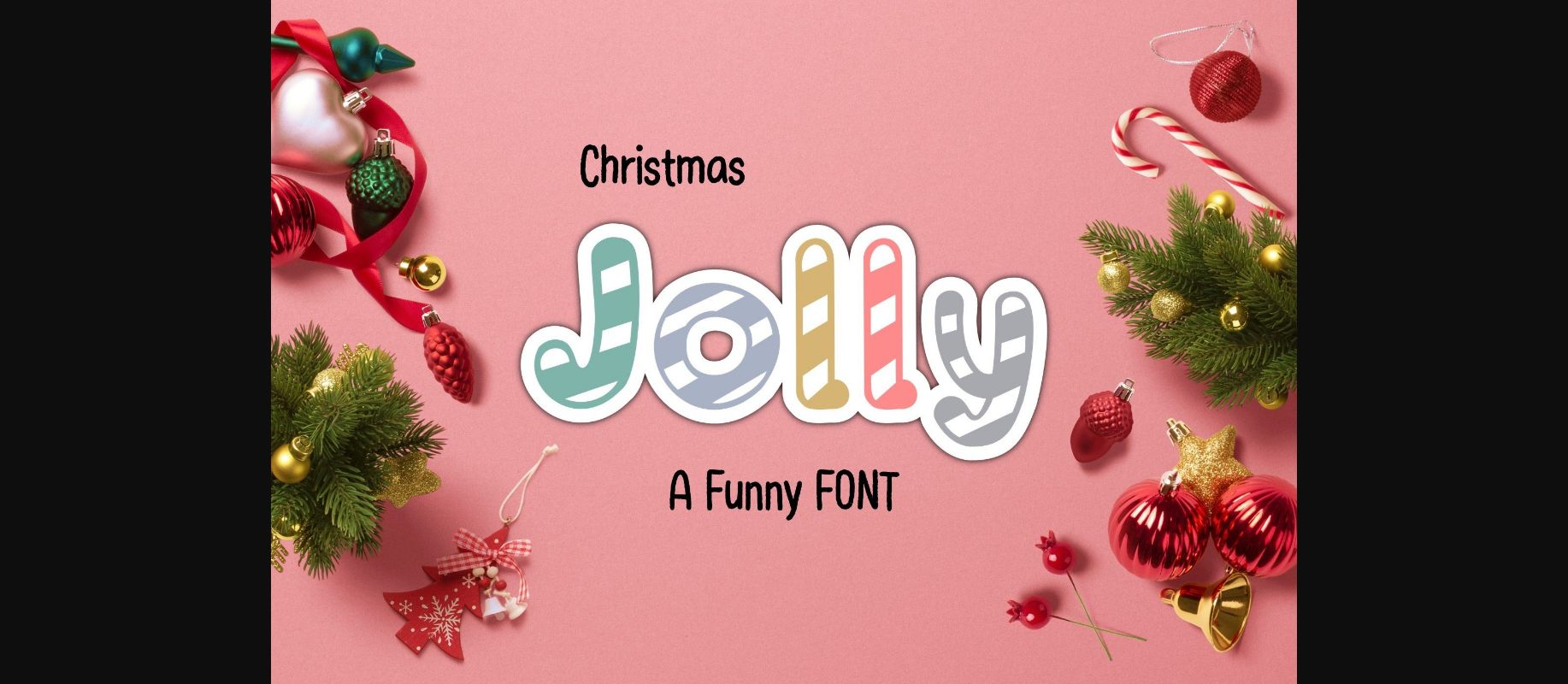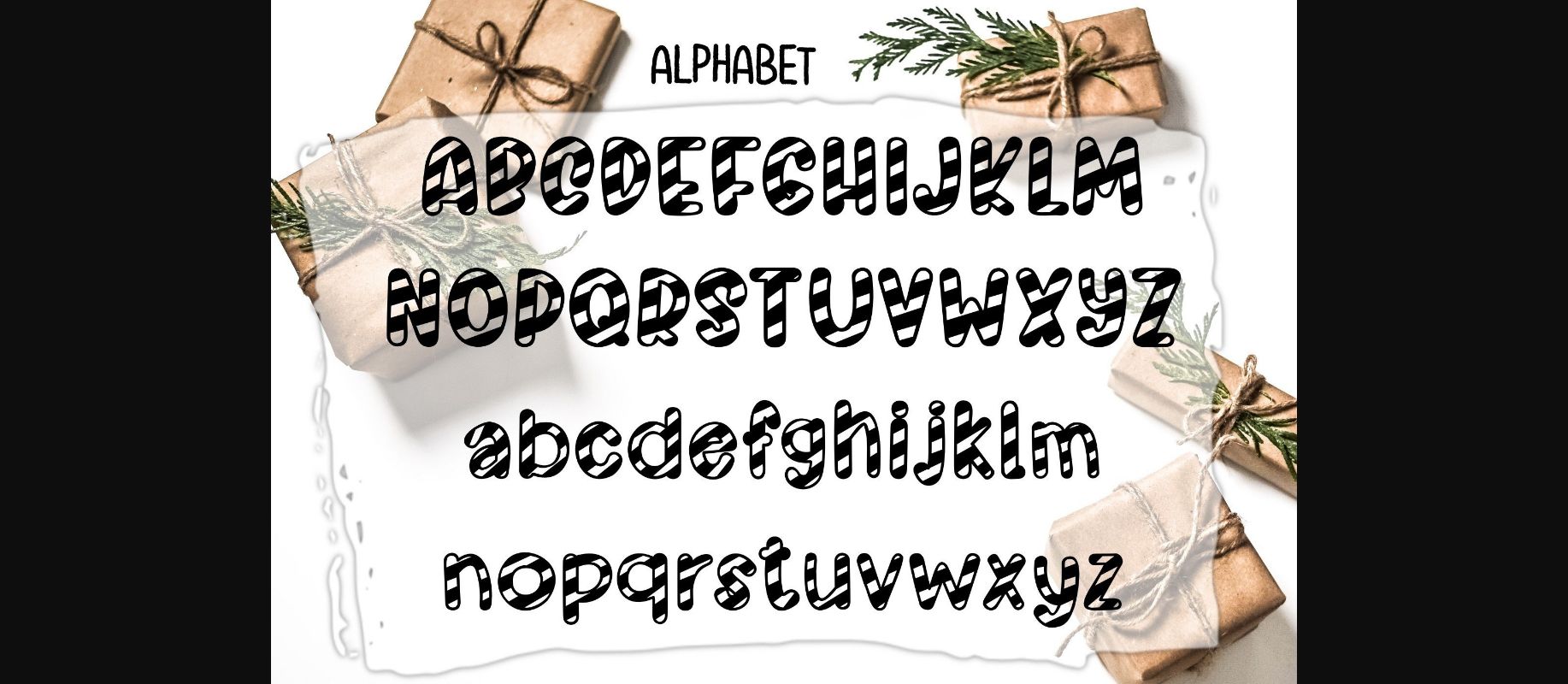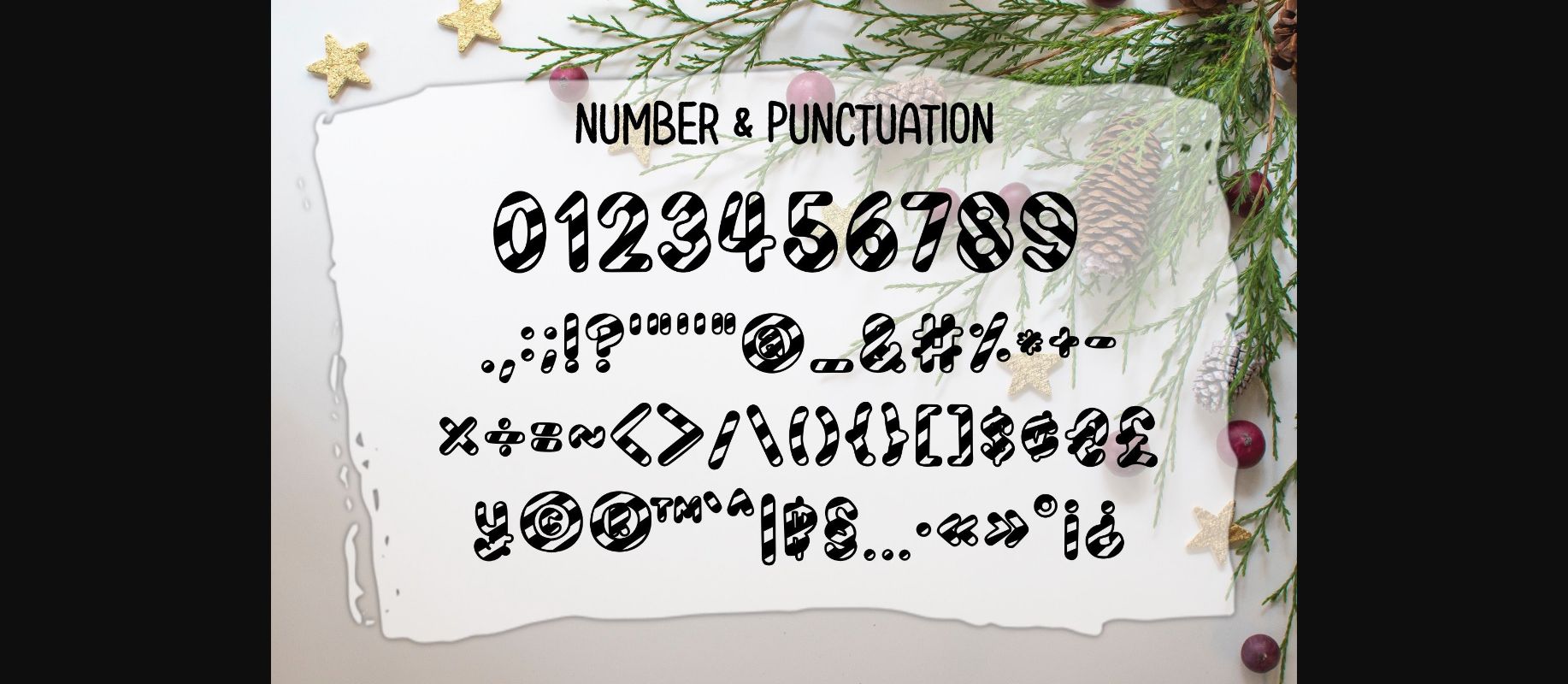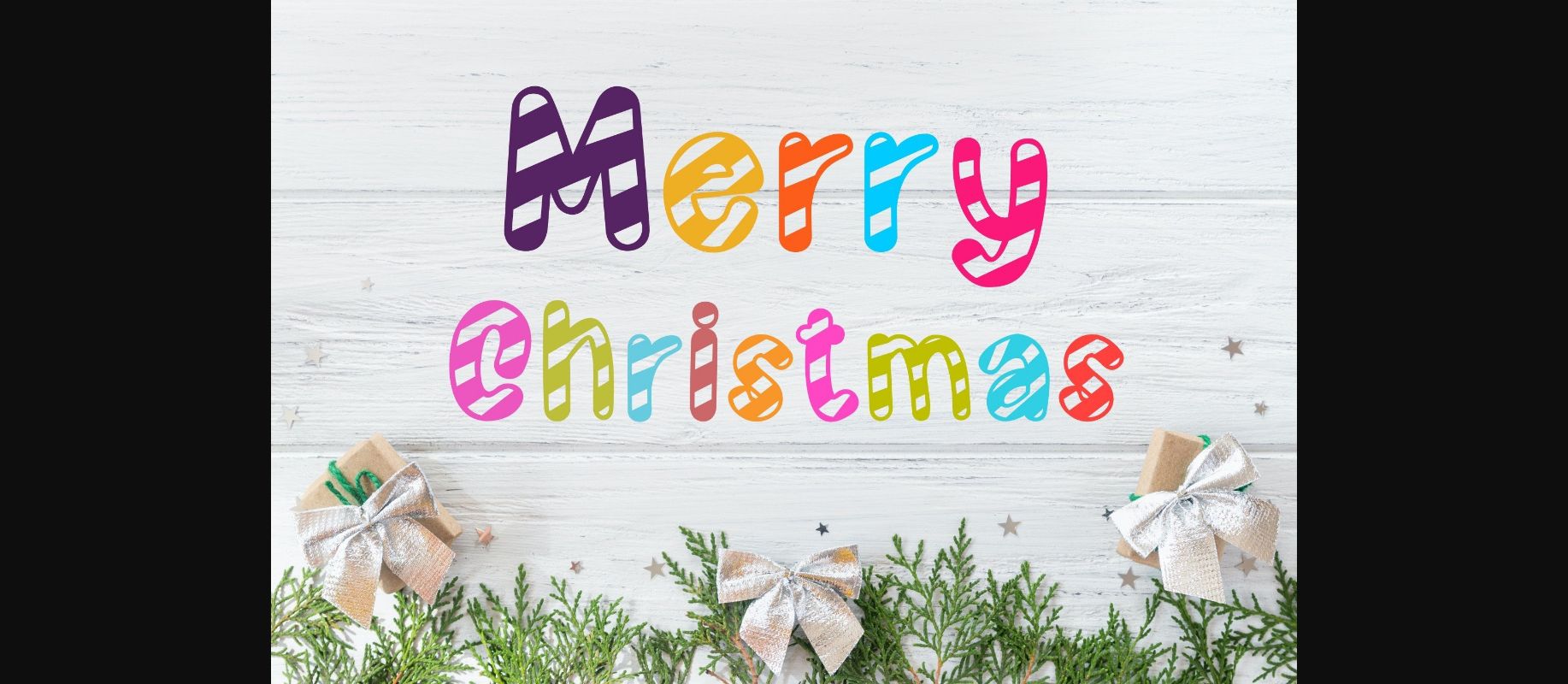
‪Christmas Jolly‬ Font
About ‪Christmas Jolly‬ Font
Christmas Jolly is a fun and adorable decorative font. This font is the perfect fit for all of your logos, branding, social media posts, crafty DIY projects, and much more!